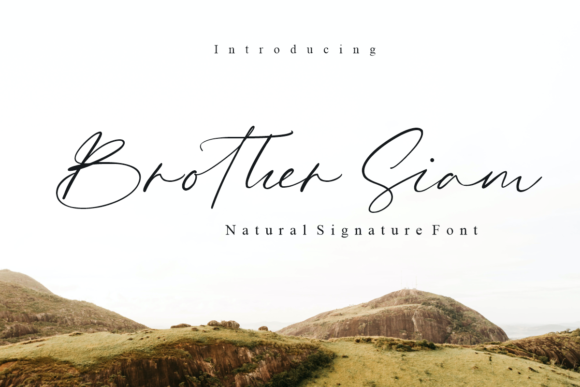
Welcome to the world of Brother Siam Font, a captivating handwritten font that will transform your design projects into masterpieces. Its delicate strokes and elegant curves evoke a sense of romance and sophistication, making it the perfect choice for creating wedding invitations, love letters, and heartfelt messages. Whether you're a professional designer or a creative enthusiast, Brother Siam Font will add a touch of magic to your creations.
Dive into a world of endless possibilities with Brother Siam Font. Its versatile character set, complete with a beautiful selection of ligatures, allows you to explore a wide range of creative expressions. Each letter dances gracefully on the page, connecting seamlessly with its neighbors to form cohesive and visually stunning words. Unleash your imagination and let Brother Siam Font guide you on a journey of artistic exploration.
Brother Siam Font is a PUA-encoded font, granting you effortless access to its entire repertoire of glyphs. With just a few clicks, you can unlock a treasure trove of alternate characters, swashes, and ornaments, empowering you to add intricate details and flourishes to your designs. Elevate your projects to new heights with Brother Siam Font's boundless versatility and creative potential.